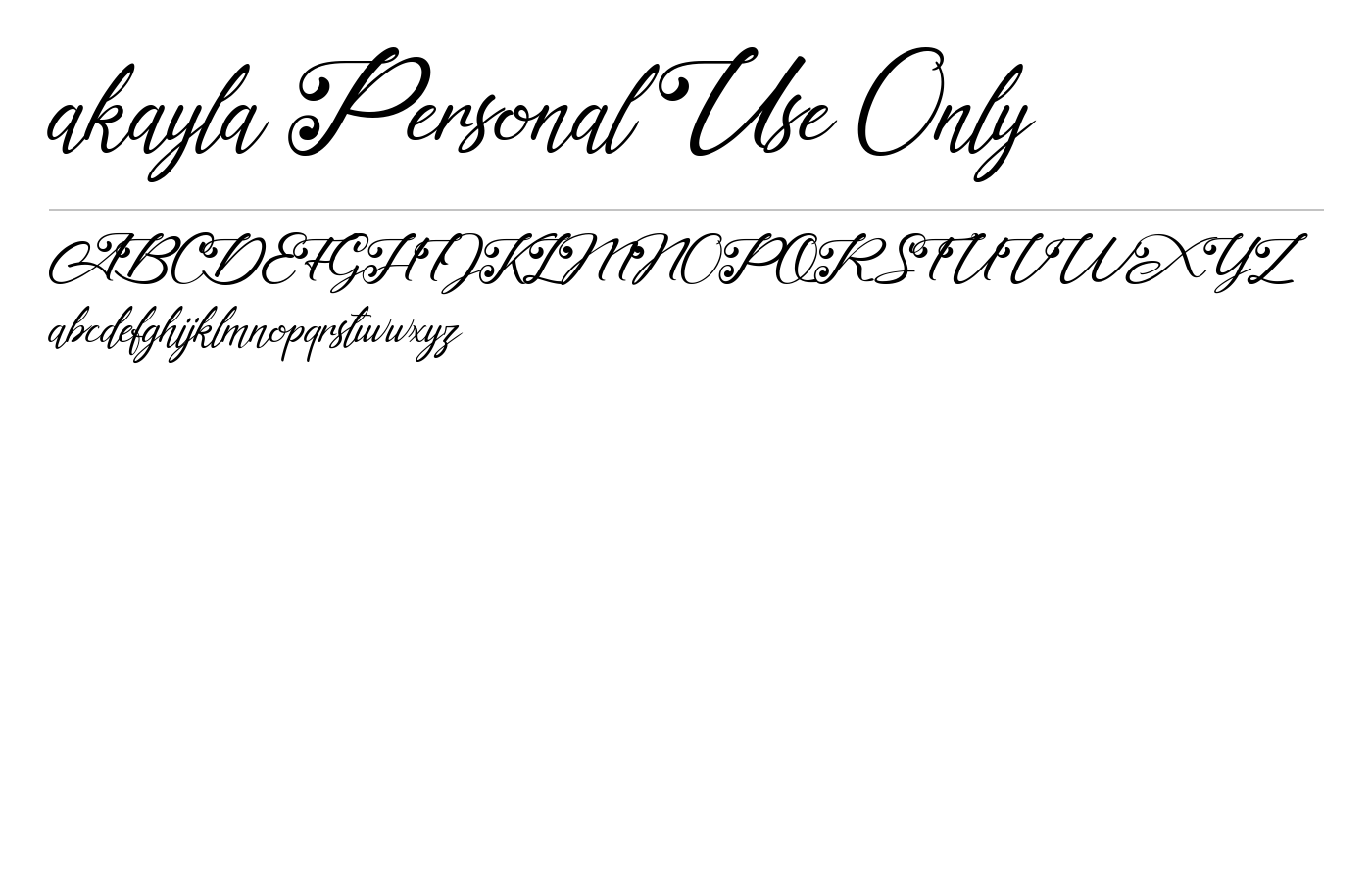
Akayla is an elegant script font with flowing, graceful letterforms that combine slender strokes and decorative swirls, giving it a stylish and sophisticated feel. Its refined, cursive style is perfect for invitations, branding, and any design needing a touch of luxury and personal flair. This font works best in headlines or logos where its ornamental details can shine without sacrificing readability.
akayla Personal Use Only Font
About akayla Personal Use Only Font